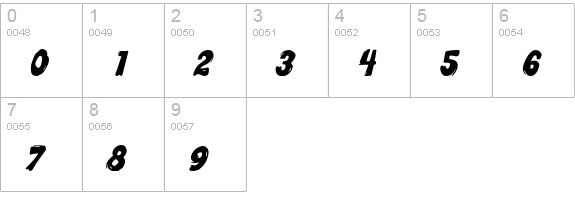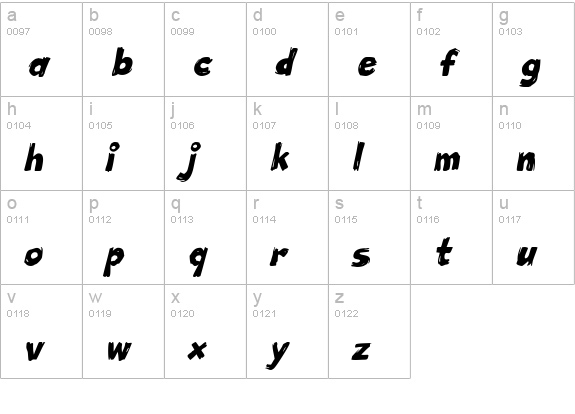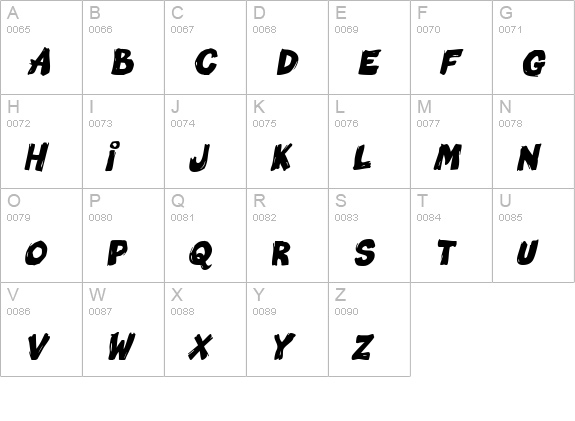
Little Piggy BTN Oblique Font Details
Little Piggy BTN Oblique is a distinctive, italic variant in the Little typeface family \xE2\x80\x94 well suited to design and typography projects.
Little Piggy BTN Oblique font is a charming and playful typeface that brings a touch of whimsy to any design project. With its slanted letters and rounded shapes, this font exudes a sense of fun and lightheartedness. Perfect for children's books, greeting cards, or any design that calls for a touch of innocence and joy. The best part? Little Piggy BTN Oblique font is available for free download at FontsMarket.com. Simply head over to the website and add this delightful font to your collection without spending a dime. Don't miss out on the opportunity to add a touch of sweetness to your designs with this adorable typeface.